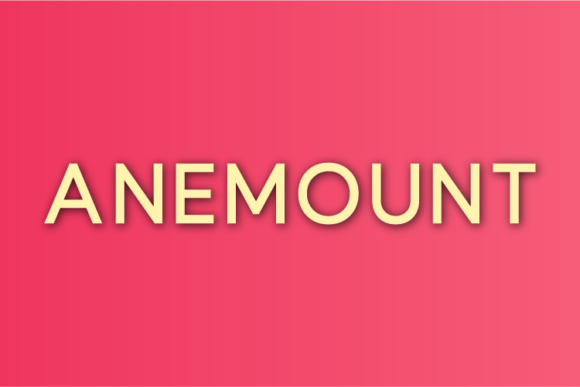
The Designer’s Delight: Anemount Font
I still remember the frustration of working on a project, hours spent crafting the perfect design, only to be held back by one thing: the font. It was like trying to find the missing piece of a puzzle. My client wanted something modern, clean, and elegant, but I just couldn’t seem to find the right fit. That was until I stumbled upon Anemount Font. ✨
Anemount is a minimal and neat sans serif font that has quickly become a staple in my design toolkit. Its versatility and simplicity make it an excellent choice for a wide range of projects, from branding and advertising to crafting and DIY tutorials. In this article, I’ll share my experience with Anemount, its features, and how to get the most out of this amazing font.
- ✅ Clean and Minimal Design: Anemount’s sleek lines and simple curves make it perfect for designs that require a modern touch.
- ✨ Highly Versatile: This font can be used for a wide range of projects, from digital designs to print materials.
- 📝 Excellent Readability: Anemount’s clear and concise design makes it easy to read, even at small font sizes.
- 🎨 Great for Branding: The font’s neutral tone and clean design make it an excellent choice for branding and logo design.
While Anemount is an excellent font, there are a few things to keep in mind: ⚠️
- 🤔 Limited Emphasis Options: Anemount doesn’t have a wide range of emphasis options, which can limit its use in certain designs.
- ⚠️ Not Ideal for Body Text: While Anemount is great for headings and titles, it may not be the best choice for body text due to its clean and minimalist design.
The Designer Behind Anemount
Anemount Font was designed with the goal of creating a clean and modern sans serif font that could be used for a wide range of projects. The designer drew inspiration from modern typography and minimalist design principles to create a font that is both elegant and versatile.
| Font Name | Anemount Font |
| Author | A Christie |
Q: What is Anemount Font?
A: Anemount Font is a minimal and neat sans serif font designed for a wide range of projects, from branding and advertising to crafting and DIY tutorials.